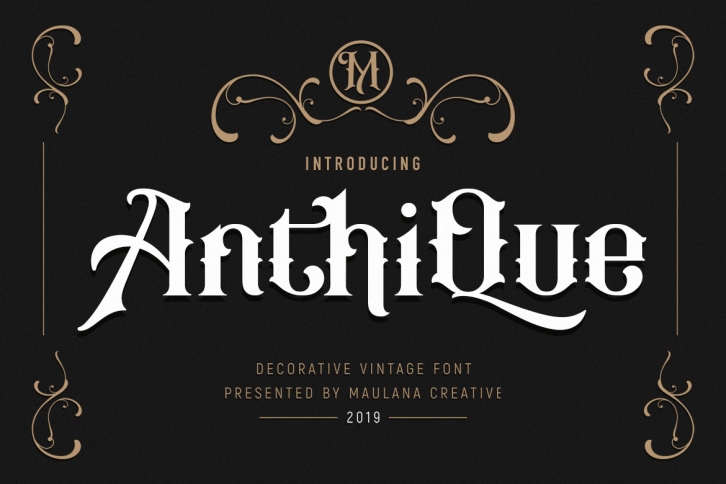
Anthique is a gorgeous font that was realeased on December 27, 2019. The font can be used in many style contexts and design environments. Perfect for invitations, magazines, websites, logos, and more! It was designed by Maulana Creative and the file size is 15.90 MB. Thanks for checking out this font!